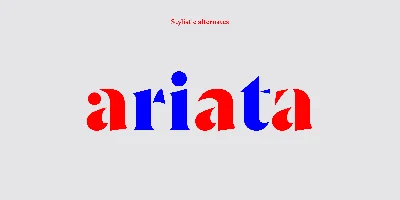
Ariata Font
Ariata Font is ideal for opera house programs, classical music festival materials, concert hall signage, fine arts education branding, symphony orchestra communications, performing arts venues, conservatory publications, and cultural foundation presentations. This melodious typeface brings operatic elegance and musical sophistication to any project requiring lyrical typography with artistic refinement and classical cultural heritage.
What makes Ariata Font exciting is its perfect embodiment of musical harmony and operatic grandeur that captures the soaring beauty of vocal performance and classical artistic expression. The font features flowing letterforms with elegant curves that mirror the melodic lines of beautiful arias while maintaining exceptional readability for program notes and cultural communications. Its lyrical character and sophisticated proportions create an immediate connection to high culture and artistic excellence, making it perfect for organizations celebrating classical music, opera, and performing arts traditions. The typeface's musical appeal ensures instant recognition of cultural sophistication and artistic authority.
The Ariata Font family includes Regular, Bold, Light, Italic, and Script variants, each maintaining the signature musical elegance while offering different expressions of artistic sophistication. The family features musical symbols, classical ligatures, and performance-related characters that enhance its versatility for opera houses and classical music organizations. These variants provide comprehensive tools for creating sophisticated musical typography with authentic operatic character.
Whether you're designing for opera companies, classical music venues, or performing arts institutions, Ariata Font delivers the artistic sophistication that defines exceptional cultural typography. Its combination of musical grace and operatic grandeur makes it perfect for communicating classical excellence, artistic tradition, and cultural refinement with authentic Ariata Font appeal and timeless musical elegance.